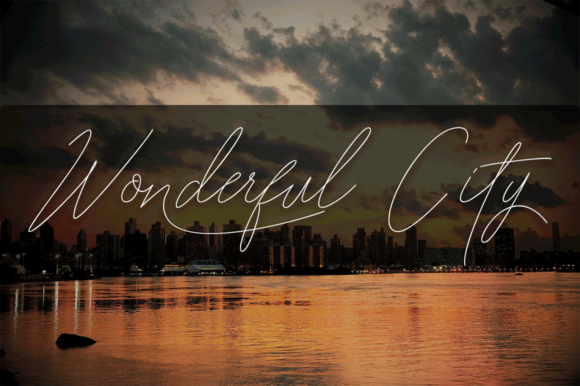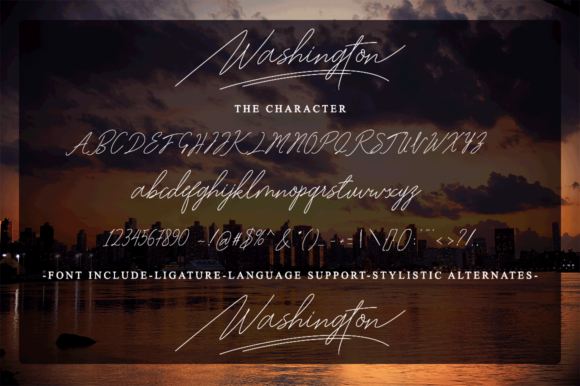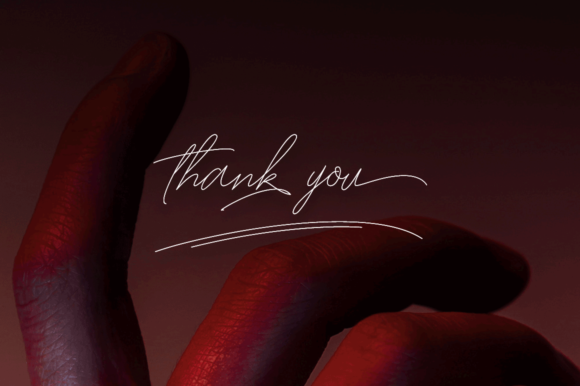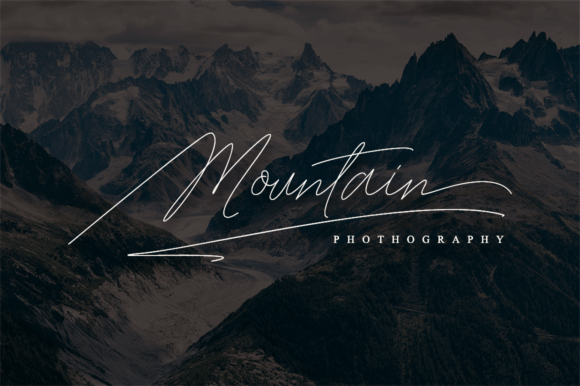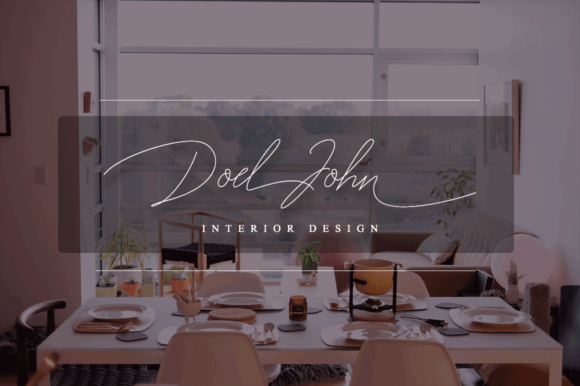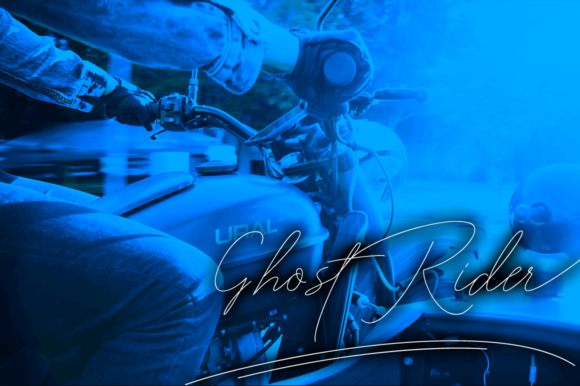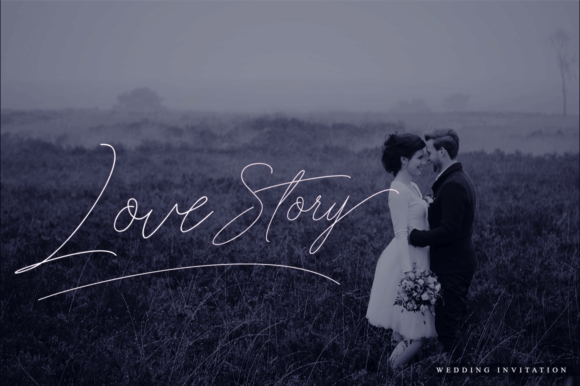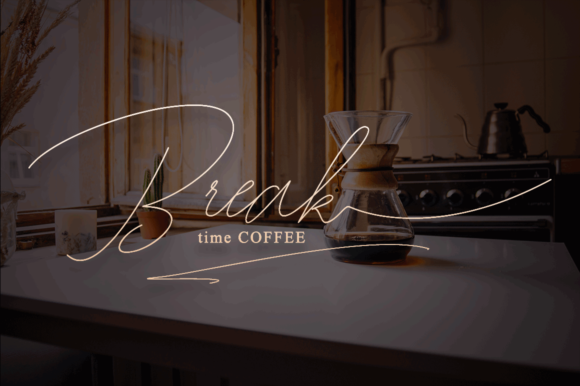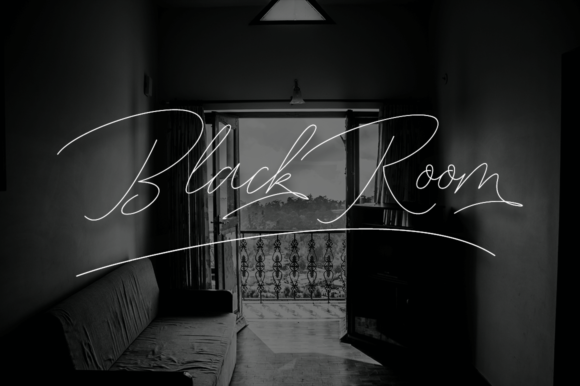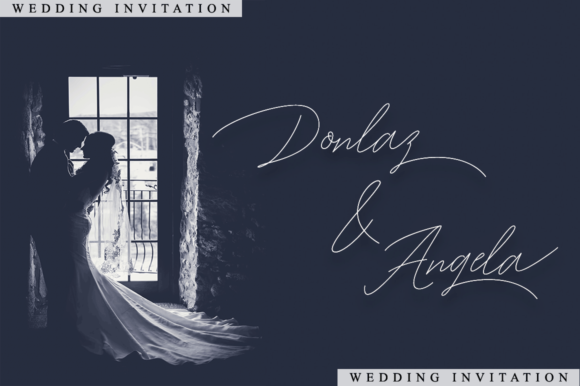
HomeScript FontsWashington Font Script Fonts Washington Font FacebookXPinterestWhatsApp Washington Font Poster 2 Washington Font Poster 3 Washington Font Poster 4 Washington Font Poster 5 Washington Font Poster 6 Washington Font Poster 7 Washington Font Poster 8 Washington Font Poster 9 Washington Font Poster 10 Washington Font Poster 11 Washington Font Poster 12 About Washington Font The Washington is a simple, yet classy font. It signature style will give your designs a personal touch. DOWNLOAD NOW People also explored Oneliner Font Alone Font Meisha Duo Font Snowfall Font Love Sugar Font Gleaming the Cube Hello Morning Font Anitta History Font Frame Font 246 0 TagsWashington Font Previous articleScrambled Tofu FontNext articleBrittania Font LEAVE A REPLY Cancel reply Comment: Please enter your comment! Name:* Please enter your name here Email:* You have entered an incorrect email address! Please enter your email address here Website: Save my name, email, and website in this browser for the next time I comment. Personal Use Free BD Nokio Personal Use Free Read more about this font Sweet Someday Personal Use Free Read more about this font Hearted Personal Use Free Read more about this font Open Heart Personal Use Free Read more about this font BLOG Elegant Wedding Invitation Fonts – Handwritten & Script Fonts Elegant Wedding Invitation Fonts Your wedding day is one of the most important moments of your life, and every detail matters—including your invitation design. Our... Exploring Font Trends Transform Your Website: Elevate Your Typography with 7 Best Web Font Generators How to Install and Use Fonts on Windows, macOS, and Web Projects